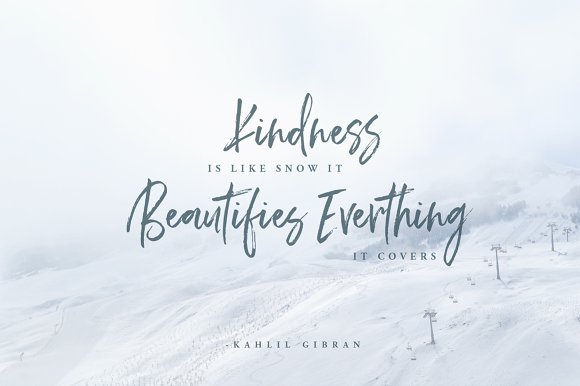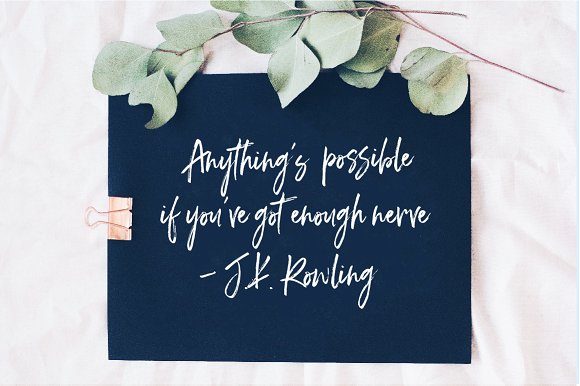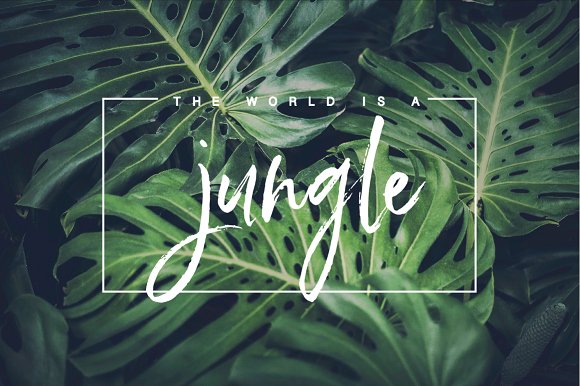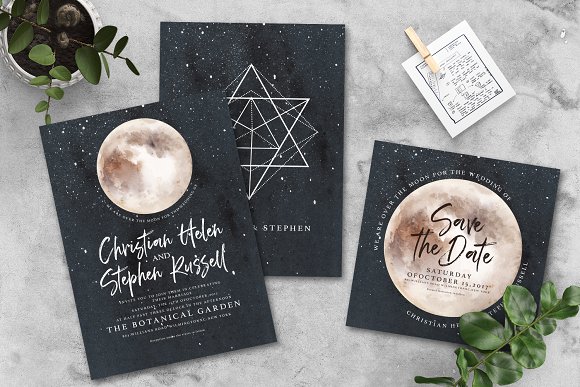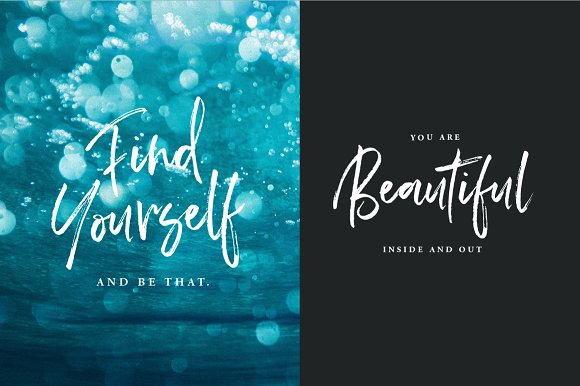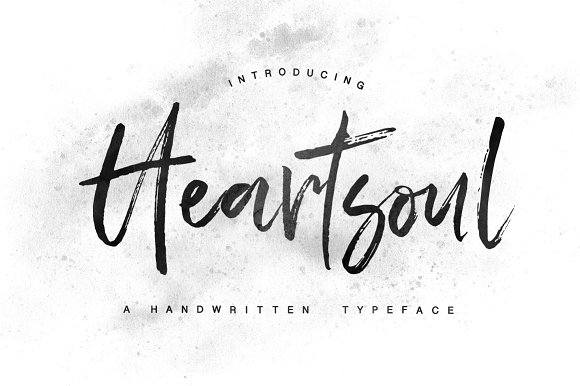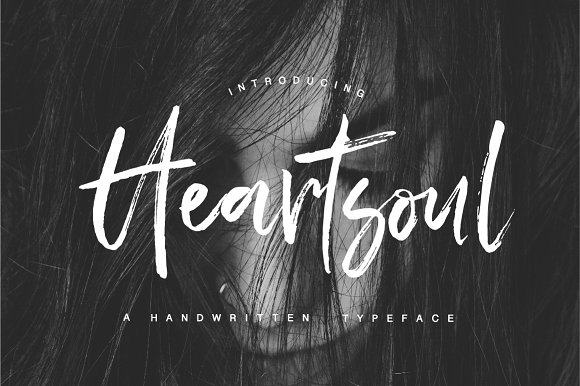
Heartsoul Font
Heartsoul is handwriting scripted font, it is brush typeface with a very naturally hand written look & just the right amount of texture.You are welcome to use it for various purposes: logo, wedding invitation, headings, signatures, t-shirt, letterhead, signage, labels, posters etc.